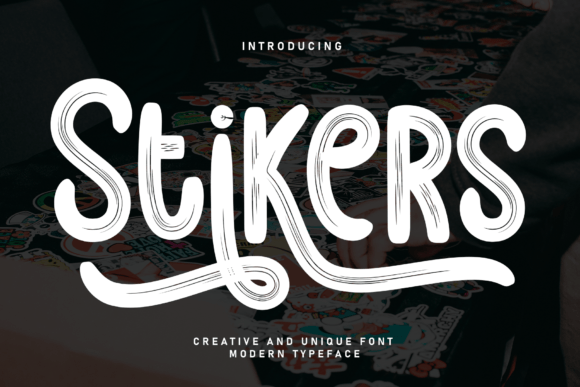
Stikers: The Bold Brush Typeface for High-Impact Visual Communication
In the crowded landscape of digital and print media, capturing attention within seconds is the primary challenge for designers, marketers, and content creators. The typography chosen for a project often dictates whether a message is ignored or absorbed. Among the myriad of options available, Stikers has emerged as a distinctive tool for those seeking to make a loud, clear statement. This straightforward and bold brush display typeface combines the organic energy of hand-painted lettering with the precision required for professional design. Its clean lines and heavy strokes create a no-nonsense aesthetic that cuts through visual noise, making it an ideal choice for headlines, signage, and graphics that demand immediate recognition.
The Anatomy of a Statement Font
To understand why Stikers resonates with such a broad audience, one must look at its structural characteristics. Unlike traditional serif fonts that whisper authority or geometric sans-serifs that suggest modernity, Stikers shouts confidence. It mimics the stroke of a wide brush, yet it avoids the messy irregularities often associated with genuine calligraphy. This balance is crucial; it retains the human touch of hand-lettering while maintaining the legibility and consistency needed for commercial application.
The font's defining feature is its high contrast between thick and thin strokes, executed with a dynamic angle that suggests speed and movement. However, unlike script fonts that can be difficult to read at small sizes, Stikers is designed as a display face. This means it shines when scaled up. The terminals are sharp, and the counters (the enclosed spaces within letters) are open enough to ensure clarity even when the text is viewed from a distance or on low-resolution screens. This specific combination of bold strokes and clean geometry allows it to function effectively across various mediums, from a massive billboard to a social media thumbnail.
Strategic Applications in Branding and Signage
For business owners and brand strategists, the choice of typeface is a strategic decision that influences brand perception. Stikers is particularly effective for brands that want to project energy, youthfulness, or urgency. Consider the automotive industry, where sales events require signage that stops traffic—literally and figuratively. A "Summer Sale" banner rendered in Stikers conveys immediacy and excitement far better than a delicate italic or a stiff block font.
Beyond retail, the food and beverage sector frequently leverages this style of typography. Craft breweries, burger joints, and coffee shops often seek an aesthetic that feels artisanal yet accessible. Using Stikers for menu headers or packaging labels can evoke the feeling of a chalkboard special or a hand-painted sign, suggesting freshness and custom care. The font's versatility allows it to fit into both retro-inspired designs and ultra-modern streetwear branding, proving that a bold brush style is not confined to a single era or niche.
Educators and event organizers also find value in this typeface. For school spirit weeks, sports tournaments, or community fundraisers, the goal is to generate enthusiasm. Headlines created with Stikers naturally carry a tone of celebration and action. When used on flyers or digital invitations, the font sets an energetic tone before the reader even processes the specific details of the event.
Digital Dominance: Social Media and Web Design
In the digital realm, where users scroll rapidly through feeds, static and subtle design elements often fail to register. Content creators and social media managers need assets that halt the scroll. Stikers excels in this environment due to its high visual weight. When overlaid on photography or used as a standalone graphic element in Instagram stories, TikTok covers, or YouTube thumbnails, it commands focus.
The effectiveness of Stikers in digital formats stems from its readability on small screens. Because the strokes are thick and the forms are simplified, the text remains legible even when compressed into a mobile notification or a sidebar ad. Web designers can utilize this font for hero sections—the large banners at the top of a webpage—to immediately communicate the site's primary value proposition. For example, a fitness app landing page using Stikers for its main headline ("Crush Your Goals") instantly aligns the visual language with the active, determined mindset of the target user.
However, prudent use is essential in web design. As a display font, Stikers should be reserved for headings and short calls to action. Using it for body text would reduce readability and cause eye fatigue. The best practice involves pairing it with a neutral, highly legible sans-serif font for paragraphs. This contrast creates a hierarchical structure that guides the eye naturally from the impactful headline down to the detailed information.
Design Principles for Maximum Impact
While Stikers is powerful on its own, its potential is fully realized when applied with thoughtful design principles. One key consideration is color contrast. Given the bold nature of the strokes, the font interacts strongly with background colors. High-contrast combinations, such as white text on a black background or bright yellow on deep blue, amplify the font's aggressive and confident character. Conversely, placing it over busy photographs requires careful attention; adding a drop shadow, a solid backing shape, or a gradient overlay can ensure the letters do not get lost in the image details.
Kerning and tracking—the spacing between characters—are also critical when working with brush fonts. Because Stikers features dynamic angles and varying stroke widths, default spacing settings may sometimes result in letters feeling too cramped or oddly disconnected. Designers should manually adjust the spacing to create a cohesive unit where the letters feel like they belong to the same word, rather than a collection of individual shapes. This微调 (fine-tuning) ensures the "flow" of the brush stroke appears continuous and natural.
Furthermore, the context of the message matters. The personality of Stikers is inherently informal and energetic. It is generally ill-suited for contexts requiring solemnity, extreme formality, or delicate elegance, such as legal documents, luxury wedding invitations, or obituary notices. Understanding these tonal boundaries is part of exercising professional expertise. The font tells a story of action and directness; therefore, the copy it carries should match that energy. Short, punchy phrases work best, allowing the typography to do the heavy lifting without competing with dense blocks of text.
Comparative Advantages in the Typography Market
When evaluating Stikers against other display options, its unique position becomes clear. Many brush fonts suffer from excessive texture or distress, which can date a design or reduce legibility. Stikers distinguishes itself by offering a cleaner, more polished look while retaining the organic feel. It sits comfortably between the rigid structure of slab serifs and the fluid unpredictability of handwritten scripts.
For researchers and hobbyists exploring typography trends, Stikers represents a shift towards "authentic boldness." In an age of digital perfection, there is a growing consumer desire for designs that feel human-made. This font satisfies that craving without sacrificing the crispness required for modern printing and screen resolution. It offers the best of both worlds: the emotional resonance of art and the functional reliability of engineering.
Moreover, the adaptability of Stikers makes it a cost-effective choice for businesses. Instead of commissioning custom hand-lettering for every campaign—a process that can be time-consuming and expensive—designers can utilize this typeface to achieve a similar aesthetic instantly. This efficiency allows for rapid iteration and testing of different marketing messages, a crucial advantage in fast-paced industries.
Implementing Stikers in Your Workflow
Integrating Stikers into a creative workflow is straightforward, but it yields the best results when treated as a focal point. Start by identifying the core message of your project. If the goal is to inform quietly, choose a different tool. If the goal is to inspire, alert, or excite, Stikers is likely the appropriate candidate. Begin your design process by setting the headline in Stikers at a large size. Let this element dictate the mood of the rest of the layout.
From there, build the supporting elements. Choose secondary fonts that complement rather than compete. A simple geometric sans-serif often works well to ground the exuberance of the brush font. Select a color palette that enhances the boldness of the strokes. Finally, review the design from a distance. Does the headline pop? Is the message clear within three seconds? If the answer is yes, the font has done its job.
Ultimately, the power of Stikers lies in its ability to transform ordinary text into a visual event. Whether used by a graphic designer crafting a poster, a small business owner creating a window decal, or a content producer editing a video title card, this font provides the visual volume necessary to be heard. In a world saturated with information, having a typeface that demands attention is not just a stylistic choice; it is a strategic necessity. By leveraging the clean lines and bold strokes of Stikers, creators can ensure their messages do not just exist, but resonate.